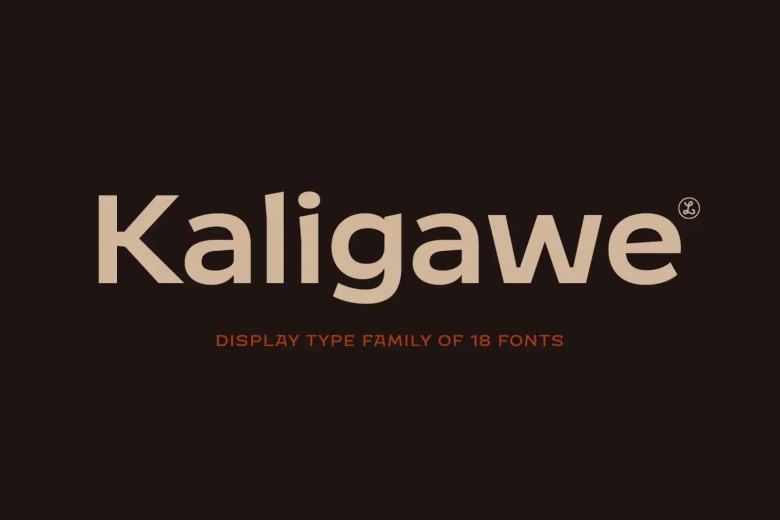
Kaligawe Font
Here comes Kaligawe, the font for those authors who demand to make a bold statement with their work. This display sans font combines medieval and modern characteristics and can only be found in this great typeface. With nine options from Thin to Black available, there are plenty for designing long-term posters, to grab attention blazing headlines, win investors’ hearts with charming movie titles or stylishly packaged products.
What makes Kaligawe different from other fonts is its ability to blend the charm of days gone by with today’s standards of style. With an elegant appeal thanks to touches of medievism; while strong sans-serif characters give it a modern edge. The result is a font that can be used for all ranges of graphic design project, whether you want something old-fashioned or with contemporary trends.
Kaligawe Sans Font Family